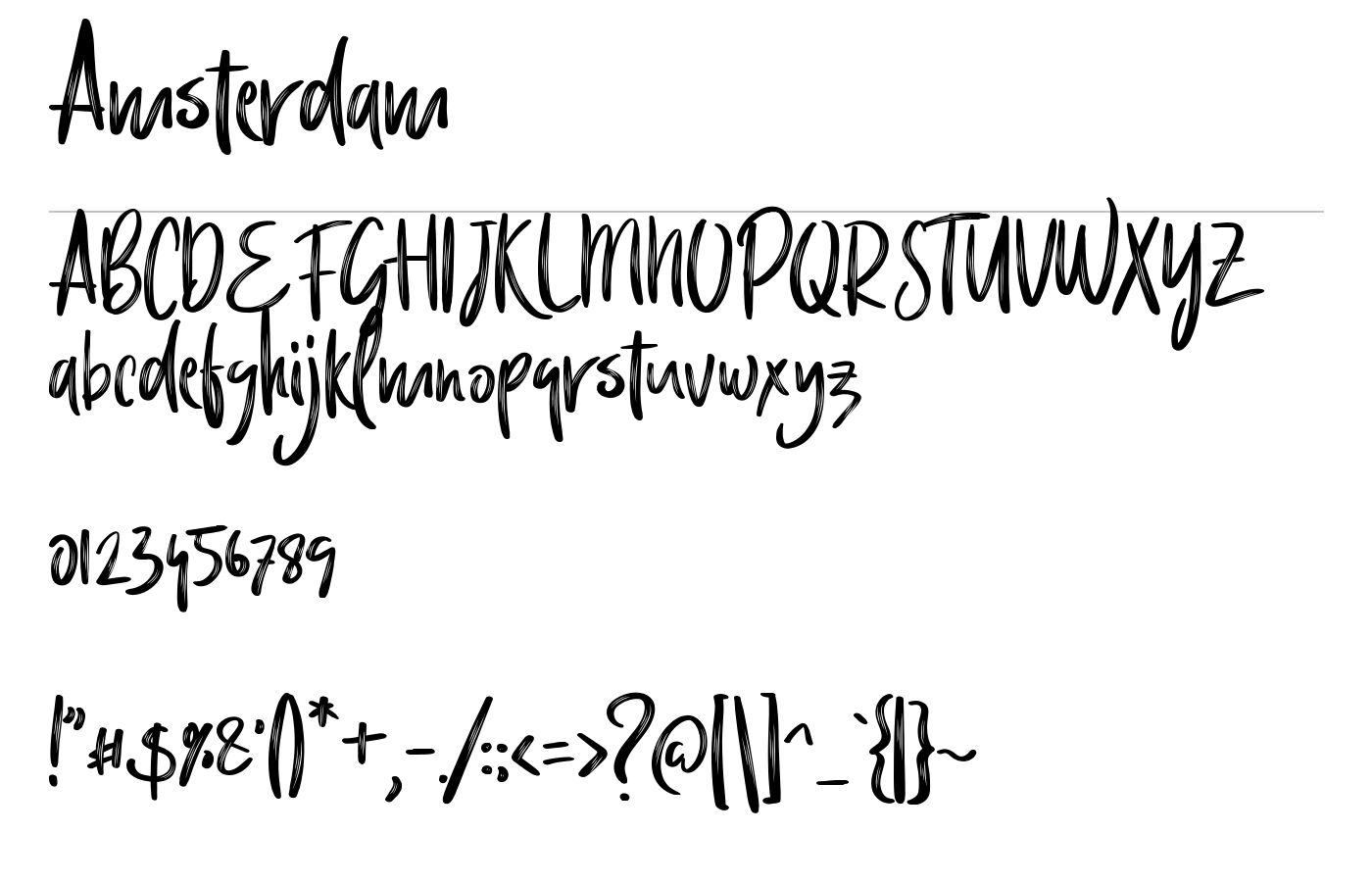
Amsterdam Font is a lively and informal handwritten script with a playful, brush-like texture that gives it a personal and dynamic feel. Its tall, narrow letterforms with varying stroke widths and smooth curves make it perfect for creative and casual designs like invitations, branding, and social media graphics. This font brings an energetic, friendly vibe that works well for projects aiming to be approachable and expressive.
Amsterdam Font
About Amsterdam Font
| Font family | Amsterdam Font |
| Designer | Deenatype |